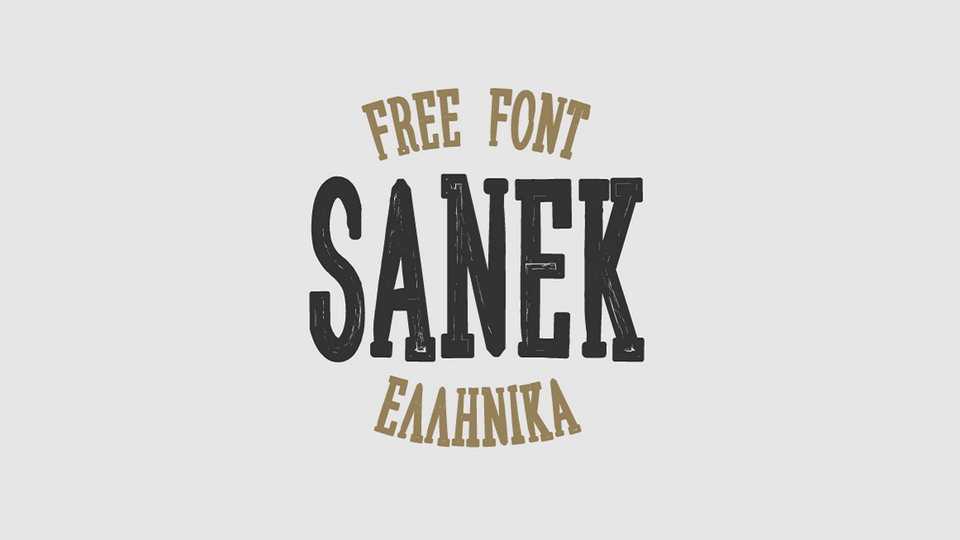
Download Sanek font, a cool hand made serif with vintage feel. Great for titles, logos, badges, vintage and craft designs, branding and merchandise projects.
Designer: Iordanis Passas